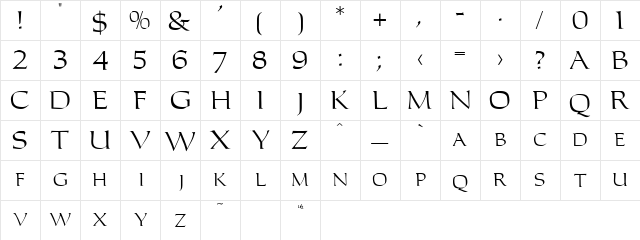
Leigh Normal Font Preview
Leigh Normal
Leigh Normal Font Details
Design Context for Leigh Typeface
Leigh is a composed and adaptable typeface that performs quietly and consistently across a wide range of design contexts.